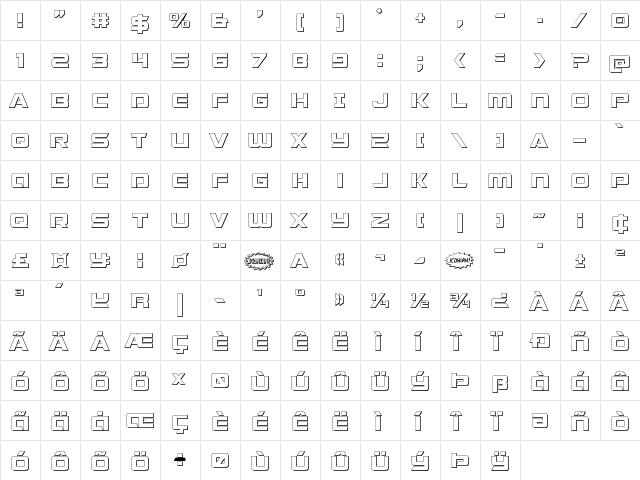
Starduster 3D Regular
Design Context for Starduster 3D Typeface
Starduster 3D is a composed and adaptable typeface that performs quietly and consistently across a wide range of design contexts.